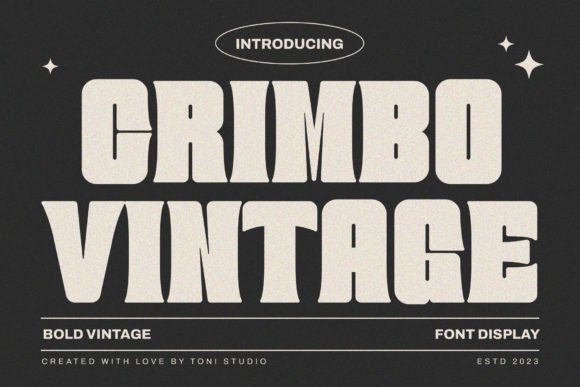
Looking to add a touch of nostalgia and style to your designs? Look no further than the captivating Crimbo Vintage Font! Created by the talented ToniStudio, this retro-inspired serif font is the perfect choice for anyone seeking to elevate their design game and make a lasting impression.
With its bold typography design, Crimbo Vintage Font brings back the vibrant and dynamic aesthetic of the 80s. Its unique shapes and attention to detail will transport you to a bygone era, instantly capturing the attention of your audience. Whether you're working on branding designs, product packaging, titles, social media posts, quotes, posters, or book covers, this font is the ultimate tool to make your content stand out.
The versatility of Crimbo Vintage Font knows no bounds. It seamlessly blends modern design trends with a nostalgic twist, making it suitable for a wide range of projects. Its timeless appeal appeals to both the young and the young at heart, creating an emotional connection with your audience that will leave a lasting impression.
Imagine the impact of using Crimbo Vintage Font in your advertising campaigns. Its captivating presence will draw the eye, making your ads irresistible to potential customers. Whether you're promoting a product, a service, or an event, this font will effectively convey your message with style and flair.
But Crimbo Vintage Font isn't just about aesthetics. It's also a powerful tool for SEO optimization. With its keyword-rich design, it ensures that your content gets noticed by search engines, boosting your website's visibility and attracting more organic traffic. By incorporating this font into your collection, you're not only enhancing your design possibilities but also optimizing your online presence.
So why wait? Take your designs to new heights with Crimbo Vintage Font. Join the ranks of successful brands and designers who have harnessed the power of this font to captivate their audience, increase engagement, and drive conversions. Don't settle for ordinary fonts when you can make a bold statement with Crimbo Vintage Font.